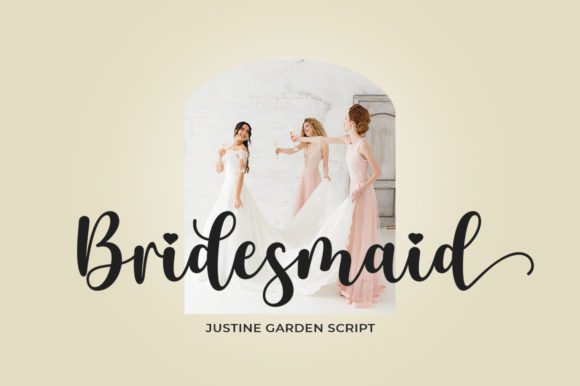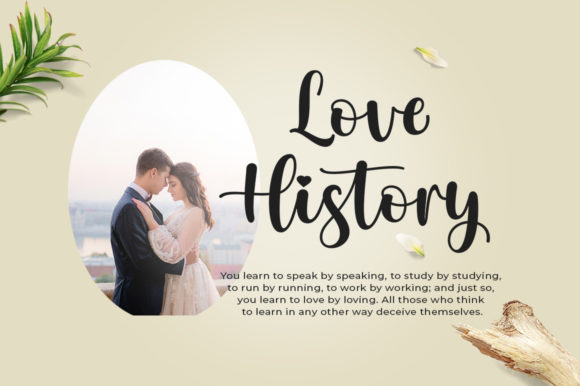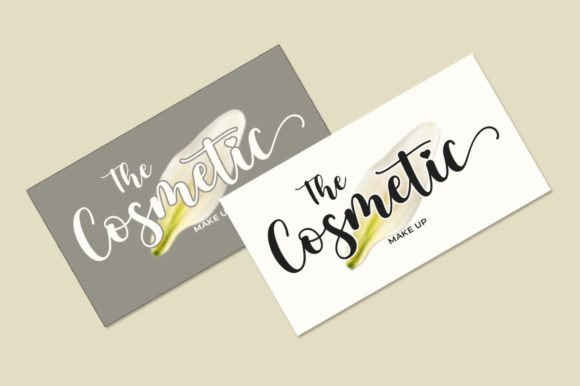
Introduction to Justine Garden Font
Have you ever stared at a blank canvas, waiting for the perfect font to spark your creative project? I know I have. The blank page can be daunting, but what if I told you that the perfect font is just a click away? For designers and artists looking for that special something, the Justine Garden Font is here to save the day.
This elegant, handwritten font is a game-changer for any creative project. With its delicate, flowing characters and beautiful balance, it’s no wonder designers are flocking to this stunning design resource. And the best part? The Justine Garden Font is PUA encoded, making it easy to access all the glyphs and swashes you need to bring your design to life.
Whether you’re working on a personal project or a high-end commercial design, the Justine Garden Font is a valuable addition to any designer’s toolkit. And with its high-quality design, you can be sure that your work will stand out from the crowd.
Key Features of Justine Garden Font
- Unique, hand-drawn style with intricate details, perfect for adding a touch of elegance to your design.
- Designed to be versatile, suitable for a wide range of creative projects, from wedding invitations to digital art.
Honest Review: Justine Garden Font
I recently stumbled upon the Justine Garden Font, a free download that I’ve been excited to test in my creative project. Overall, I’m impressed with its high quality and versatility.
What works well is its elegant and whimsical design. The font has a natural, hand-painted feel that adds a touch of sophistication to any text. ✨ The transparent background makes it easy to use in various design contexts, from website headers to social media graphics.
- Beautiful, high-quality design that’s perfect for creative projects
However, there are some limitations to consider. ⚠️ The font is not suitable for large-scale or professional use due to its relatively low character count. Additionally, some users may find the font’s hand-painted feel too cursive or ornate for certain design applications.
Overall, I’m pleased with the Justine Garden Font, and I would recommend it to designers looking for a high-quality, free design resource for their creative projects. It’s a great addition to any design toolbox, and its transparent background makes it easy to use in a variety of contexts.
Justine Garden Font is ideal for creative projects requiring a unique and elegant touch. Use it for wedding invitations, greeting cards, or any design that needs a touch of sophistication. The transparent background of the font makes it easy to combine with other design elements.
When compared to Justine Garden Font, Great Vibes Font has a more whimsical and playful feel, making it suitable for projects that require a bit of personality and charm. While Justine Garden Font has a softer, more delicate appearance, Great Vibes Font is bolder and more expressive.